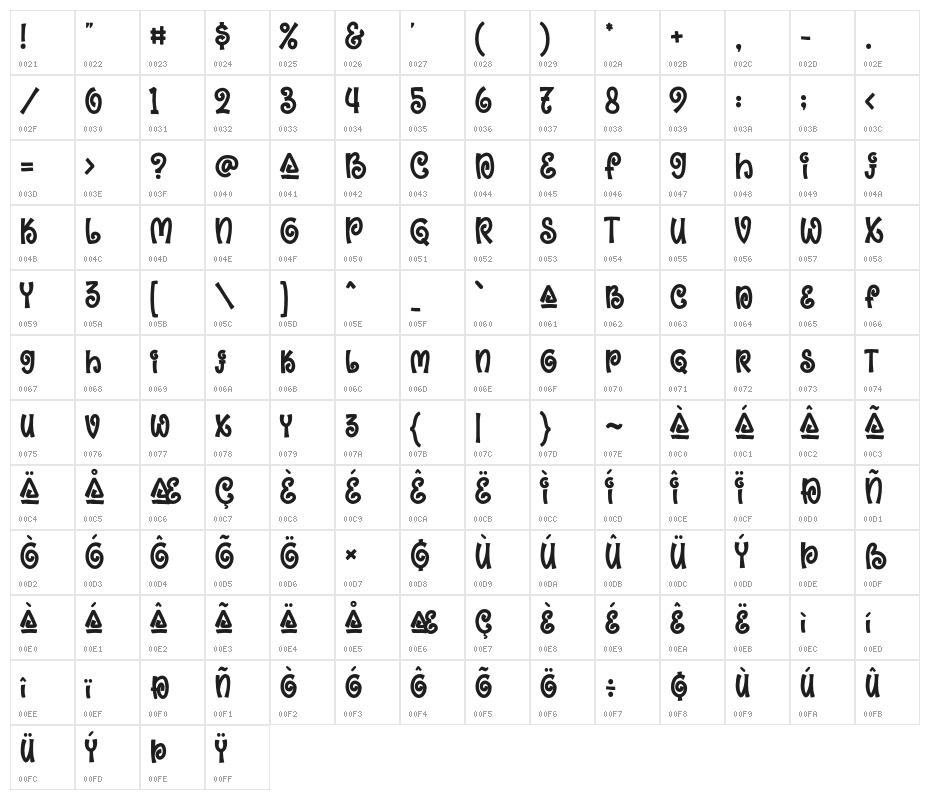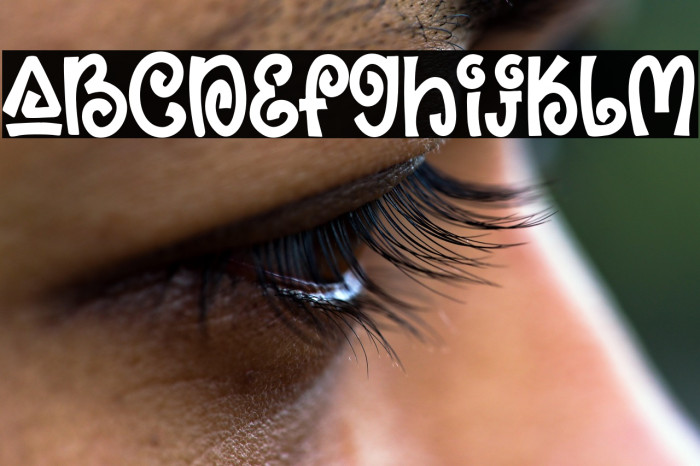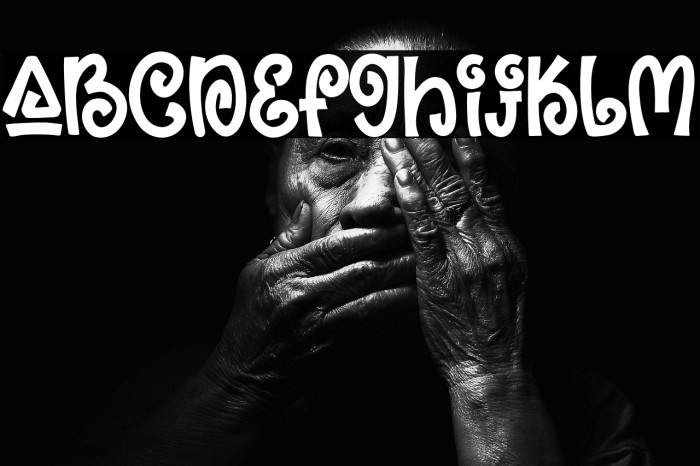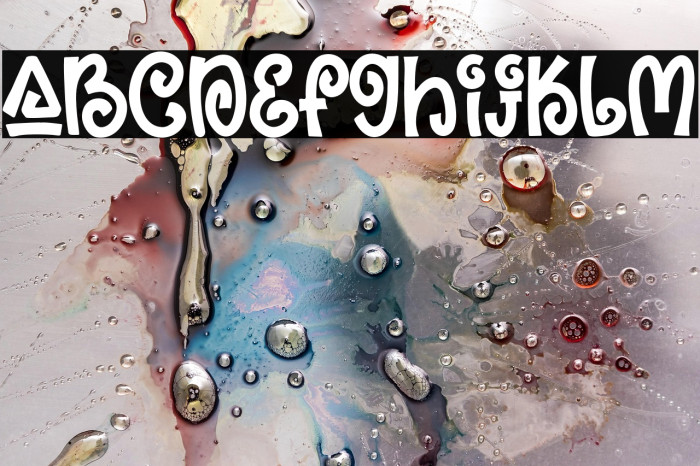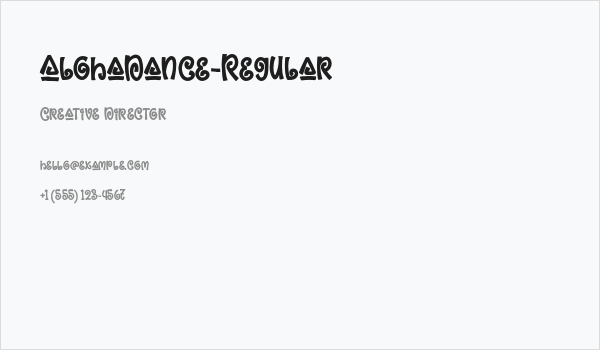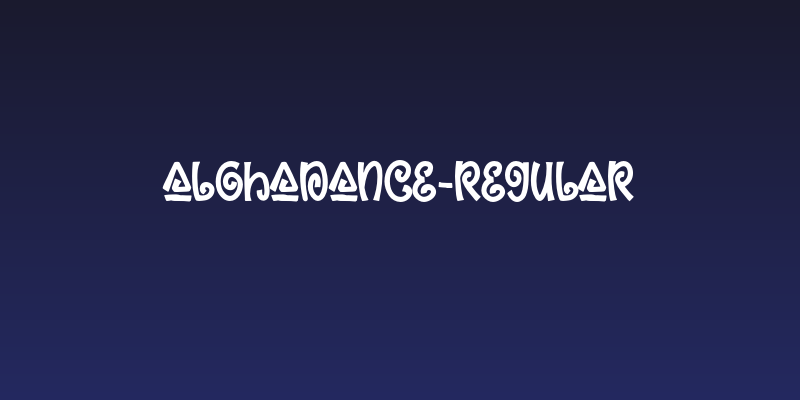
AlohaDance-Regular Font
AlohaDance-Regular Description
This font features a playful and bold design with a distinctive, whimsical flair. The characters are crafted with a unique, hand-drawn style that incorporates both rounded and angular elements, creating a lively and dynamic appearance. The uppercase and lowercase letters maintain a consistent flow, while the numerals and special characters complement the overall aesthetic. The font's bold strokes and artistic curves make it stand out, offering a sense of fun and creativity. Its decorative nature is ideal for projects that require a touch of personality and flair.
| Proposed Projects | Ideal for posters, invitations, children's books, and branding projects that require a fun and creative touch. |